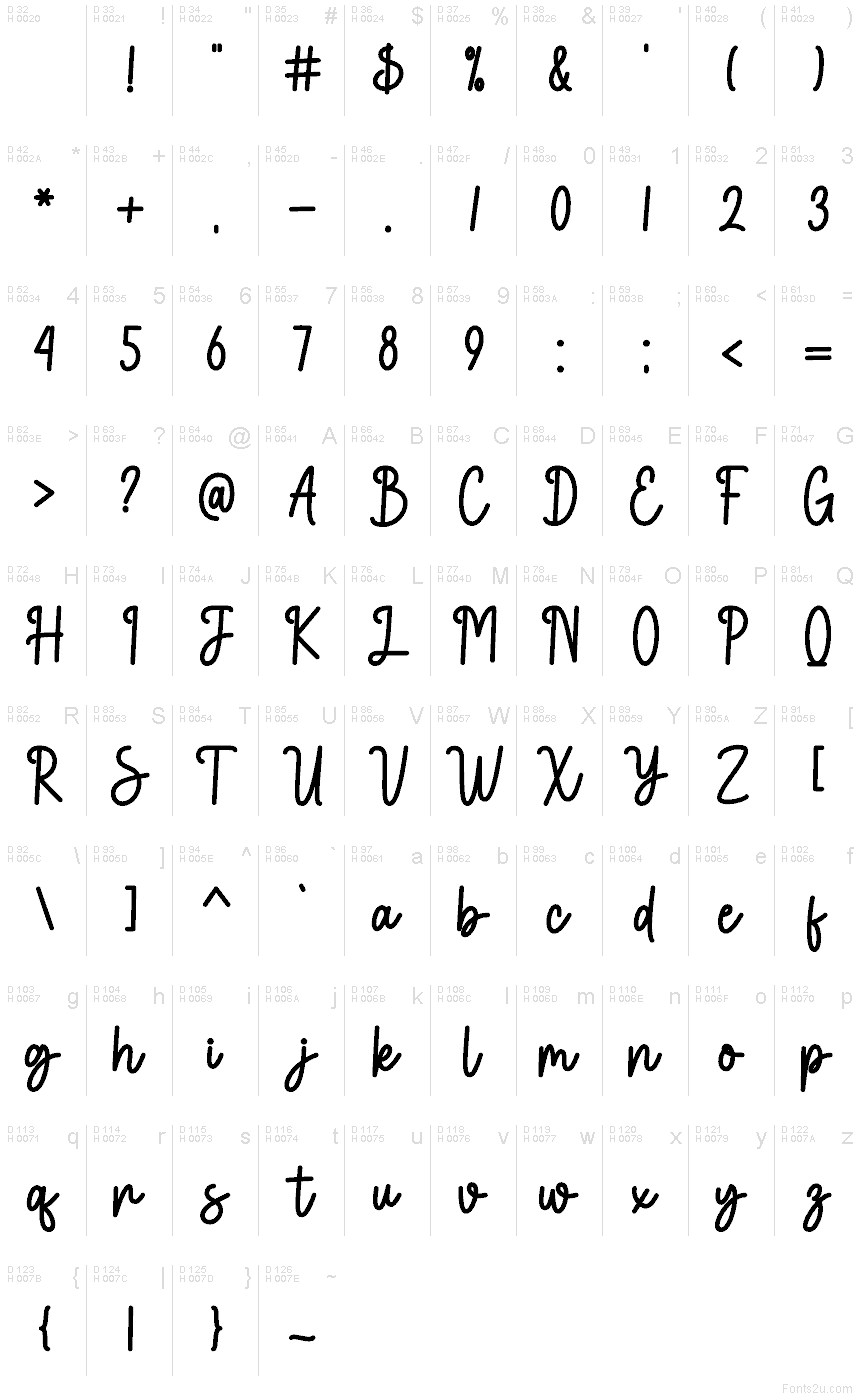
Fresh Baked
Fresh Baked font by DN Creative is an expressive handwritten typeface with a modern script-like design. The stylish letter combination along with the smooth curves gives it a casual elegant appearance and feel. It is exceptionally great in adding an expressive mood to whichever projects you are planning for. Enjoy this font PS, AI, and EPS example files.
This free handwritten font is valuable in food packaging, branding designs, magazine covers, website decor, mobile applications look/feel, flyers details, posters texts/subtitles, invitation cards (wedding gala dinner etc.), social media posts designs (Instagram FB stories etc), as well as typography artwork for professional or personal use.